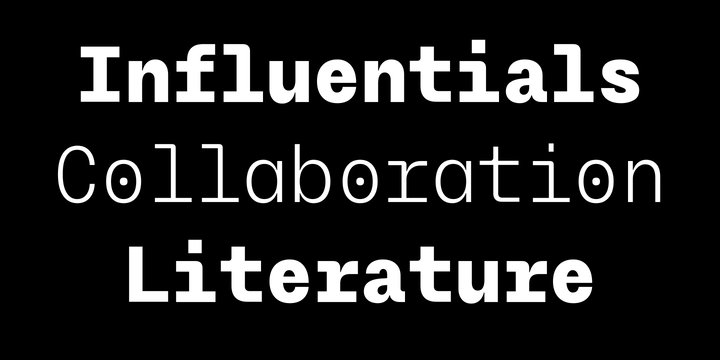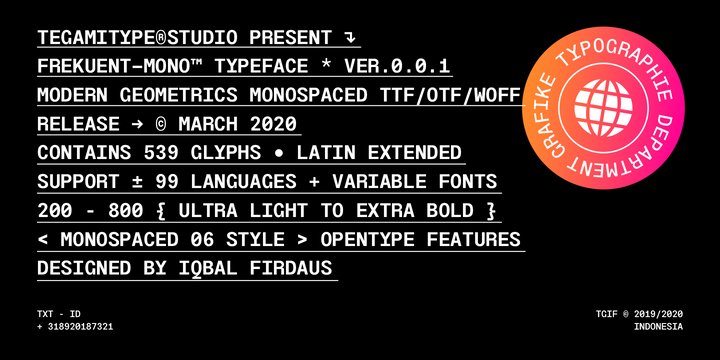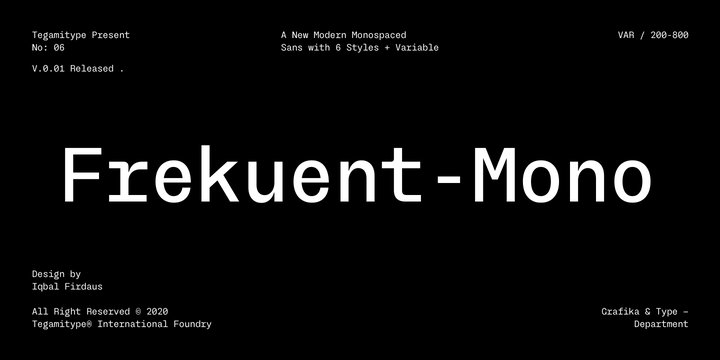
TG Frekuent Mono Font
TG Frekuent Mono a new modern geometric sans serif with monospaced style. This typeface is made with precise calculations so that it displays a beautiful and modern appearance. Besides this new typeface is also equipped with six different styles, ranging from ultra light to extra bold plus variable font.